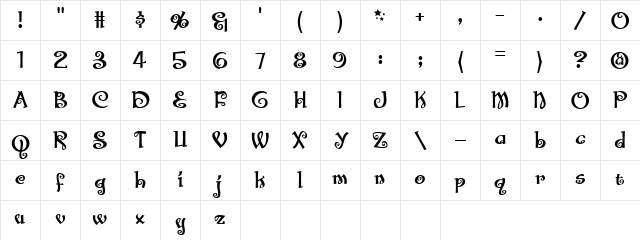
Santas Big Secret BB Regular
Design Context for Santas Big Secret BB
Santas Big Secret BB is a composed and adaptable typeface that performs quietly and consistently across a wide range of design contexts.
Pro Tip: Use Santas Big Secret BB in both headline and body roles to test its range before committing to a single application.